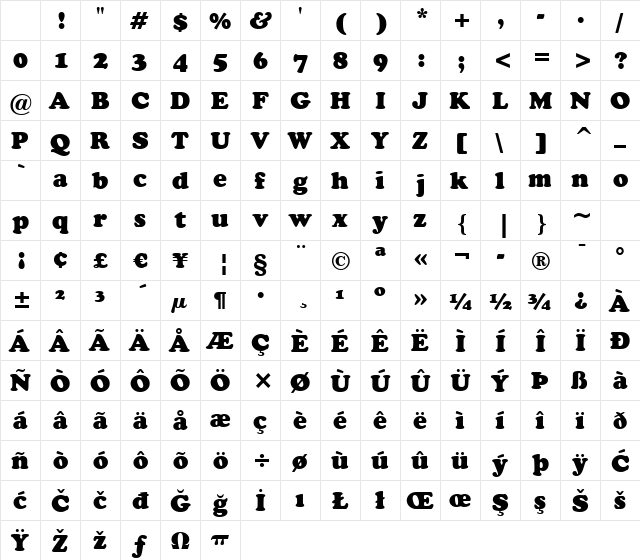
Complete Cooper BlkHd BT Black glyph index. Displaying only characters natively supported by Cooper BlkHd BT Black font.
Cooper BlkHd BT is a composed and adaptable typeface that performs quietly and consistently across a wide range of design contexts.